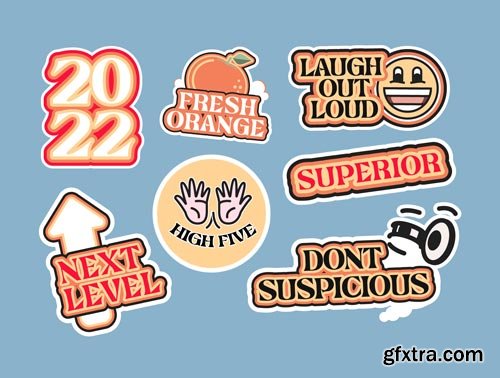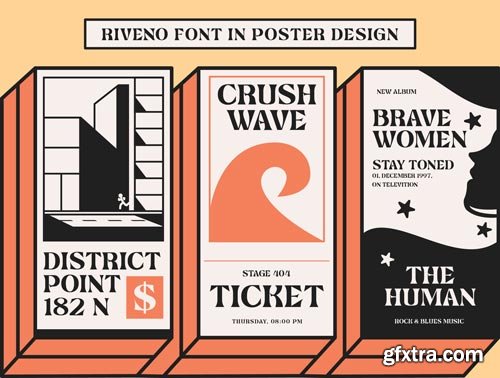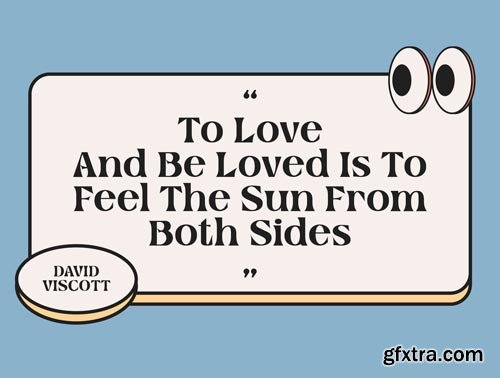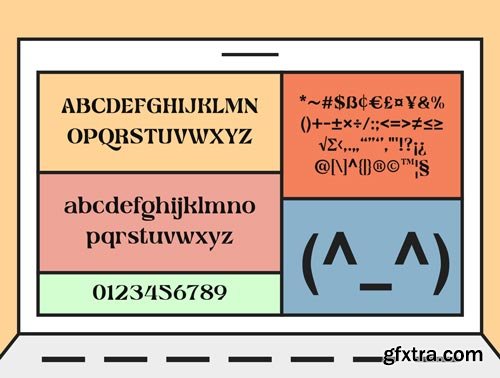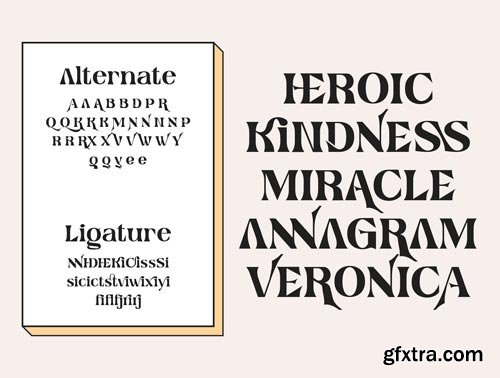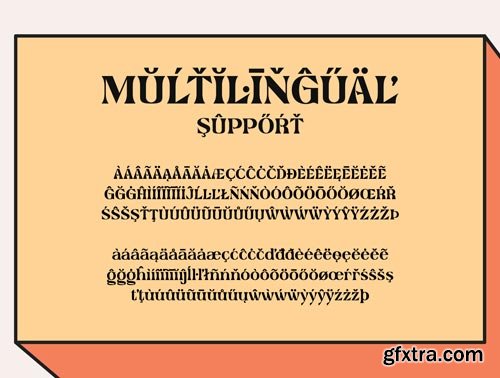
Riveno is a display font with sharp edge. This font can be used in a various of designs such as headlines, cover, poster, logo and more. This font contains uppercase, lowercase, numeral, punctuation marks, multilingual support and this font has ligature & alternate features that can make your typeface look more stylish.